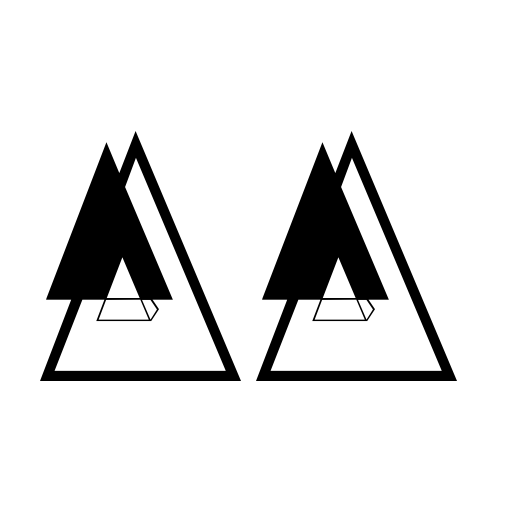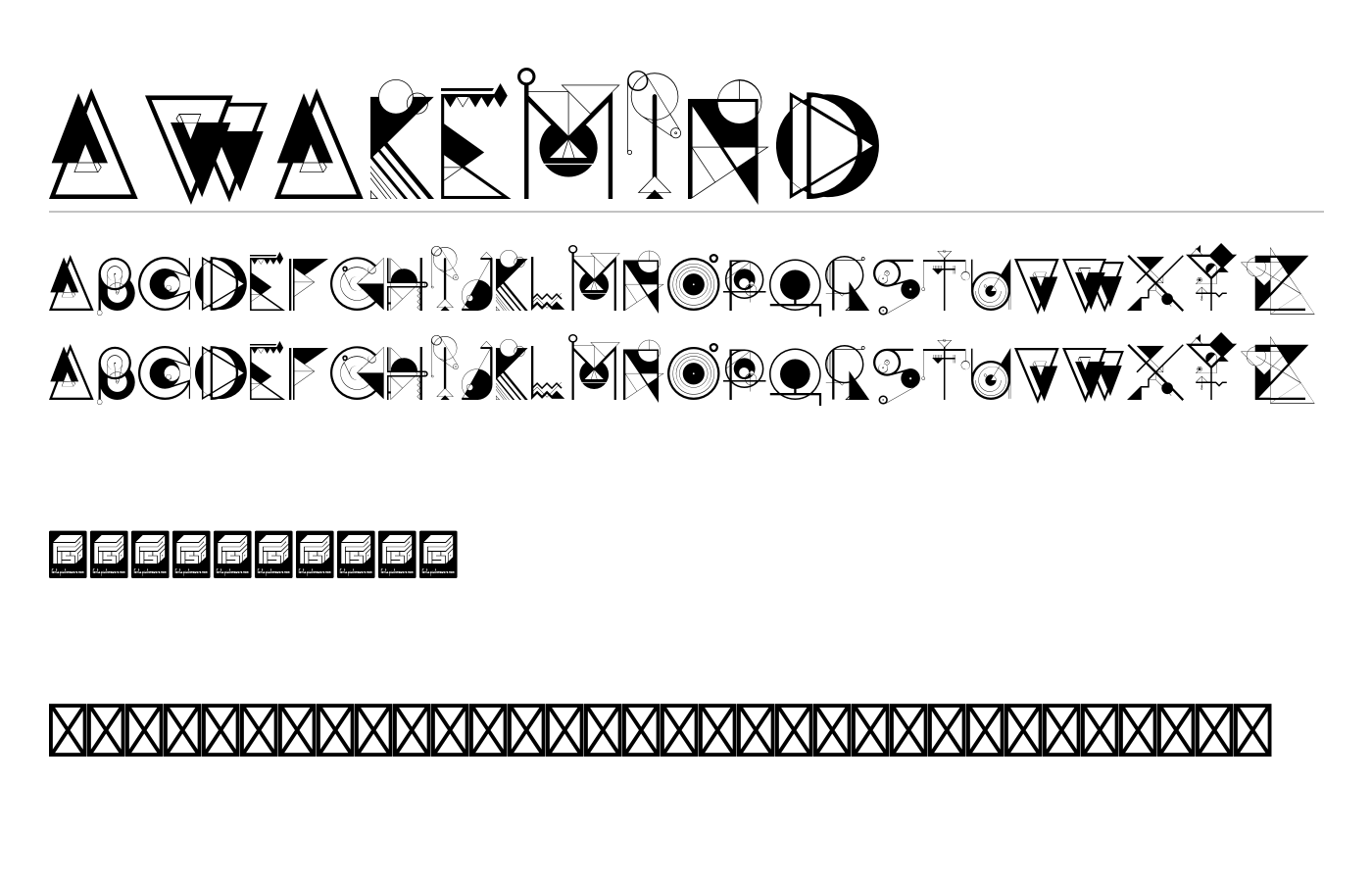
AWAKEMIND is an avant-garde, decorative display font that blends geometric shapes with intricate linework, creating a futuristic and abstract appearance. Its highly stylized letterforms are best suited for artistic projects, branding, and headlines that want to convey creativity, innovation, and uniqueness. This font shines in large sizes where its complex details can be fully appreciated, making it ideal for posters, logos, and editorial design that seek a bold and visionary aesthetic.
AWAKEMIND Font
About AWAKEMIND Font
| Font family | AWAKEMIND Font |
| Designer | Gilberto Moya |